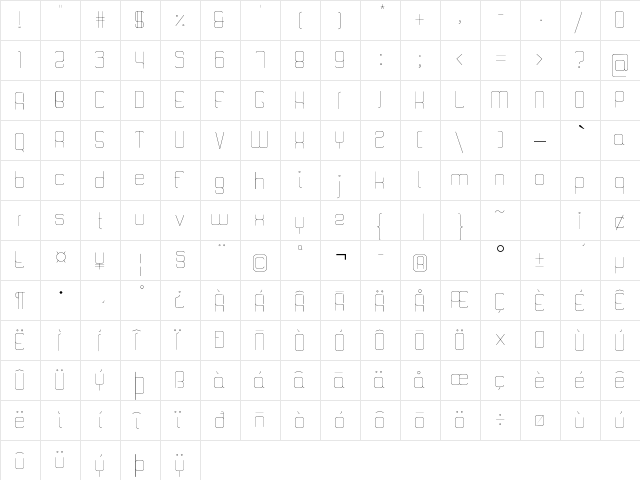
Quattro Thin
Design Context for Quattro Typeface
Quattro is a composed and adaptable typeface that performs quietly and consistently across a wide range of design contexts. The delicate stroke weight brings airiness and refinement to layouts.